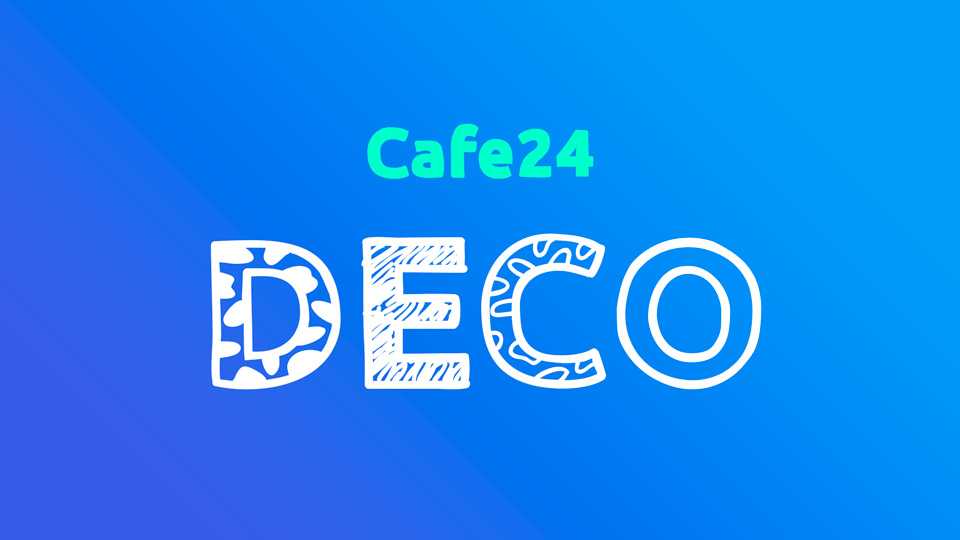
Download Deco typeface, a decorative display font family with 6 styles made with hand drawn patterns. Deco is great for posters, book covers, social media, t-shirt prints and other fun projects.
Designer: Cafe24